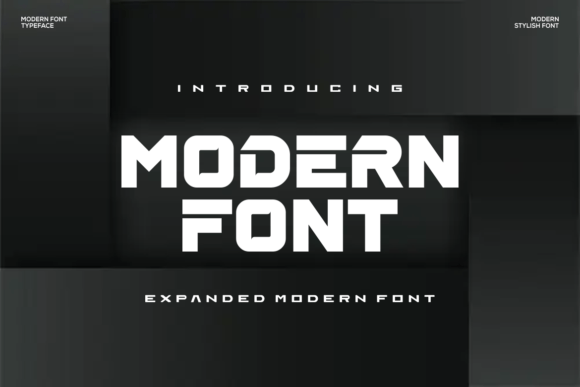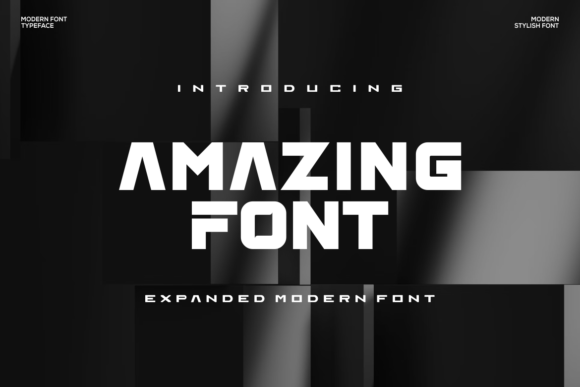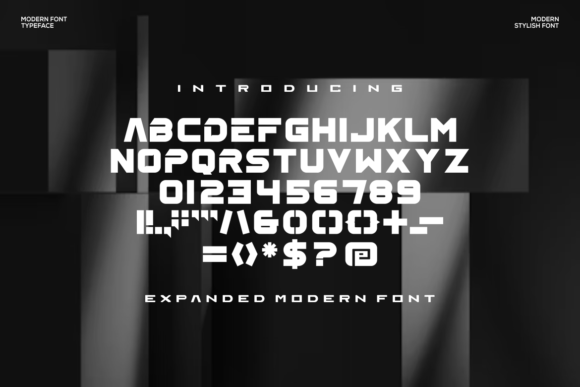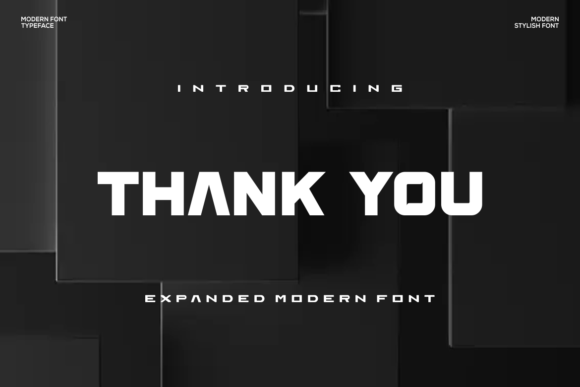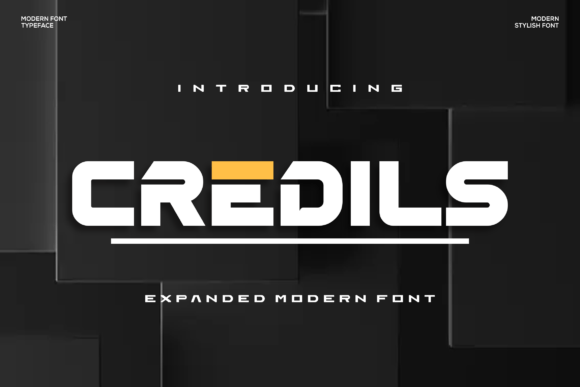
Introducing Credils Font: The Modern Display Font for Creative Projects
In the world of design, fonts play a crucial role in conveying the message and tone of a project. A well-chosen font can elevate a design from ordinary to extraordinary. We’re excited to introduce our new product, Credils Font – a modern, bold, and authentic display font perfect for creative projects.
What is Credils Font?
Credils Font is a modern display font designed to make a statement. Its bold and authentic style makes it ideal for branding projects, logos, t-shirt printing, and creative products. This font is versatile and can be used in a variety of contexts, from advertising and marketing materials to packaging and digital media.
Key Features of Credils Font
- Bold and Authentic Style: Credils Font boasts a bold and authentic style that grabs attention and makes a lasting impression.
- Versatility: This font is perfect for a wide range of creative projects, from logos and branding materials to t-shirt printing and digital media.
- Easy to Read: Despite its bold style, Credils Font is easy to read, making it perfect for headlines, titles, and short paragraphs of text.
- High-Quality Design: Credils Font is designed with high-quality craftsmanship, ensuring that it looks great in any context.
Use Cases for Credils Font
Credils Font is perfect for a variety of creative projects, including:
- Logos and Branding: Use Credils Font to create a bold and memorable logo that stands out from the crowd.
- T-Shirt Printing: Credils Font is ideal for t-shirt printing, adding a touch of modern style to any design.
- Creative Products: Use Credils Font to add a professional touch to your creative products, such as brochures, flyers, and posters.
- Digital Media: Credils Font is perfect for digital media, including social media graphics, website headers, and email newsletters.
Why Choose Credils Font?
With so many fonts available, why choose Credils Font? Here are just a few reasons:
- Unique Style: Credils Font offers a unique and modern style that sets it apart from other fonts.
- High-Quality Design: Our font is designed with high-quality craftsmanship, ensuring that it looks great in any context.
- Versatility: This font is perfect for a wide range of creative projects, making it a great addition to any design toolkit.
In conclusion, Credils Font is a modern, bold, and authentic display font perfect for creative projects. Its versatility, ease of use, and high-quality design make it a great addition to any design toolkit. Whether you’re a designer, crafter, or DIY enthusiast, Credils Font is sure to elevate your designs to the next level.